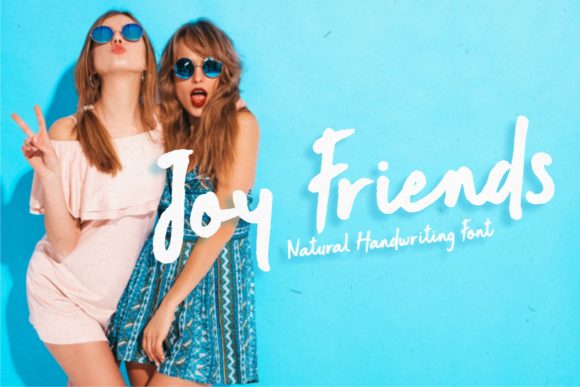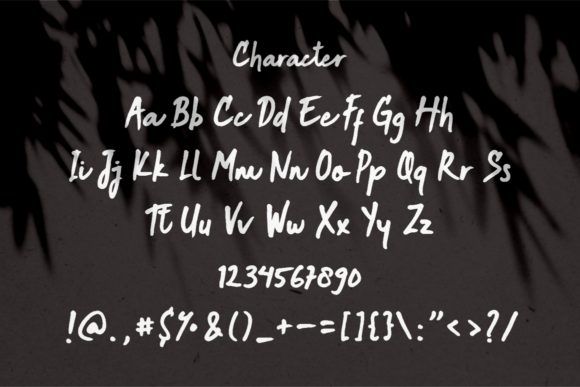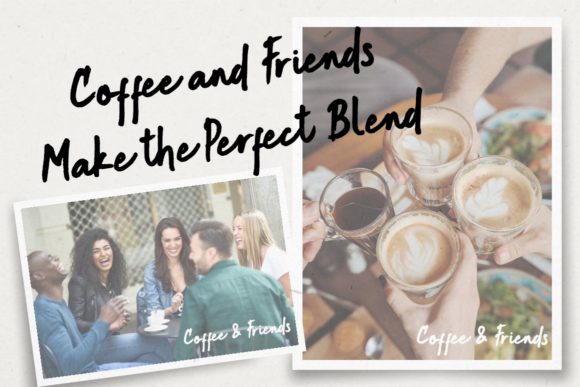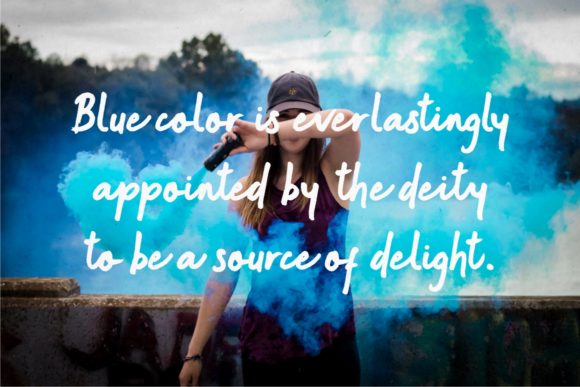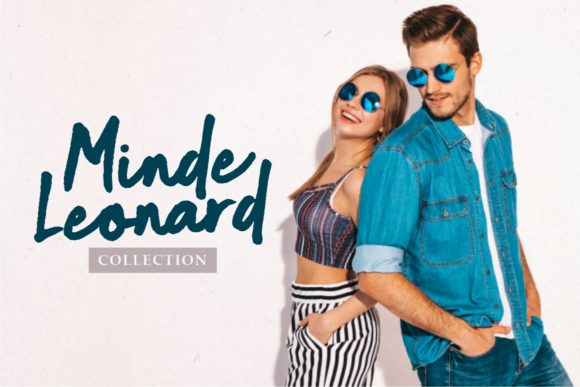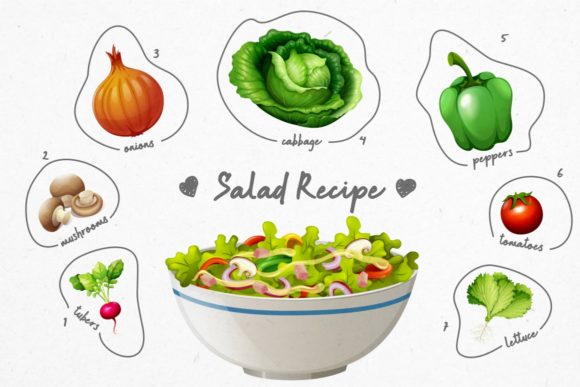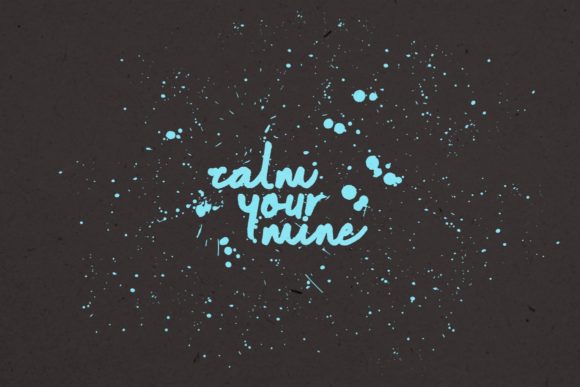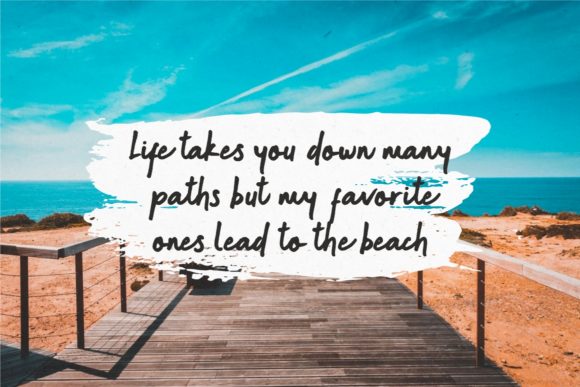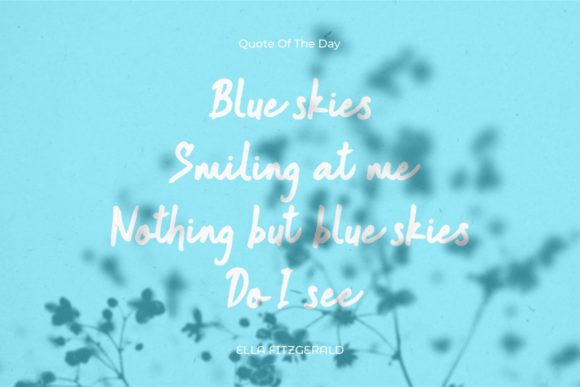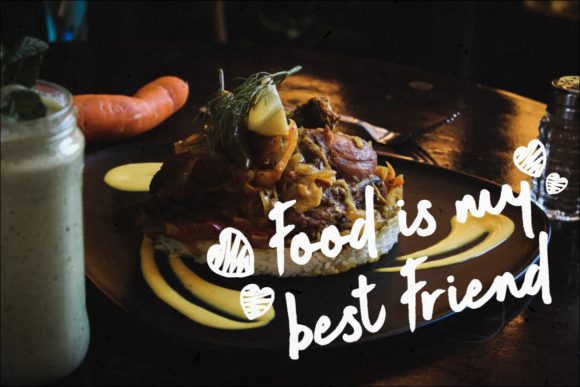
Joy Friends Font
About Joy Friends Font
Joy Friends is a beautiful display, carefully handcrafted to become a true favorite. Use this gorgeous and unique font to bring any DIY project to life!